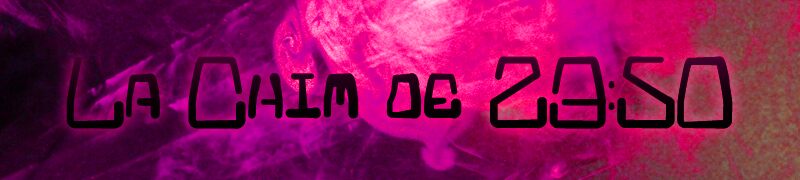
La Chim de 23:50
La Chin de 23:50 is a captivating display font crafted by the talented designer, Qkila. Its bold, angular strokes and distinct personality immediately command attention, evoking a sense of striking modernity and urban edge. The font's uncompromising aesthetic seamlessly blends minimalist sensibilities with a touch of industrial grit, creating a striking visual statement. The unique letterforms and sharp, geometric shapes give this font an undeniable visual impact, making it a compelling choice for a wide range of design projects.
This versatile font lends itself exceptionally well to titles, headings, and attention-grabbing designs. Its strong, distinctive character makes it an ideal selection for branding, packaging, and promotional materials, where it can effectively convey a sense of bold, contemporary flair. Additionally, La Chin de 23:50 can be effectively utilized in editorial design, signage, and even digital user interfaces, lending a powerful, attention-grabbing presence to any visual composition.